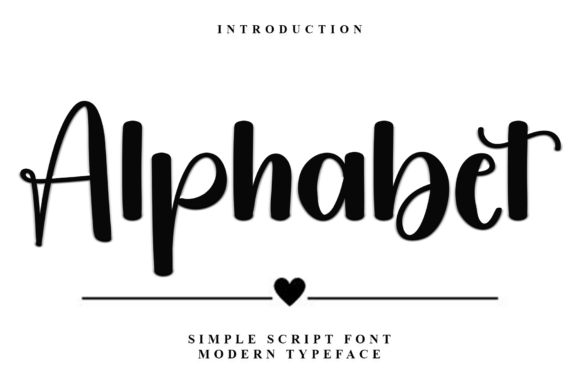
The Essence of Modern Simplicity: Discovering the Alphabet Font
I’ll never forget the design project that led me to discover the Alphabet font. I was working on a branding project for a new organic skincare line, and my client was adamant about finding a font that was both elegant and approachable. I spent hours scouring the internet for the perfect typeface, but nothing seemed quite right. That was until I stumbled upon the Alphabet font. Its modern simplicity and friendly rhythm instantly won me over, and I knew I had found the perfect fit for my client’s brand.
• ✅ Perfect blend of elegance and approachability: The Alphabet font strikes the perfect balance between sophistication and friendliness, making it ideal for brands that want to appear trustworthy and stylishly understated.
• ✅ Smooth, rounded terminals: The font’s smooth, rounded terminals give it a soft, approachable feel that’s perfect for brands that want to appear friendly and approachable.
• ✅ Incredible versatility: The Alphabet font is a true workhorse, and can be used across a variety of digital and print mediums, from minimalist web headers to product packaging.
• ⚠️ Limited contrast: While the Alphabet font is designed to be elegant and understated, it can sometimes lack contrast, particularly when used in large blocks of text.
• ⚠️ May not be suitable for very small text: While the font is generally clear and legible, it may not be the best choice for very small text, as some of the finer details can become lost.
The Designer Inspiration Behind the Alphabet Font
The Alphabet font was designed with the goal of creating a modern and elegant typeface that was both approachable and sophisticated. The designer, inspired by the simplicity and elegance of traditional calligraphy, set out to create a font that was both refined and friendly. Through a process of careful iteration and refinement, the Alphabet font was born.
Q: What is the Alphabet font best suited for?
A: The Alphabet font is best suited for brands that want to appear approachable, trustworthy, and stylishly understated. It’s ideal for use in branding, packaging, and digital design.
Q: Is the Alphabet font suitable for body text?
A: While the Alphabet font is generally clear and legible, it may not be the best choice for very long blocks of body text. It’s best used for titles, headings, and short paragraphs.